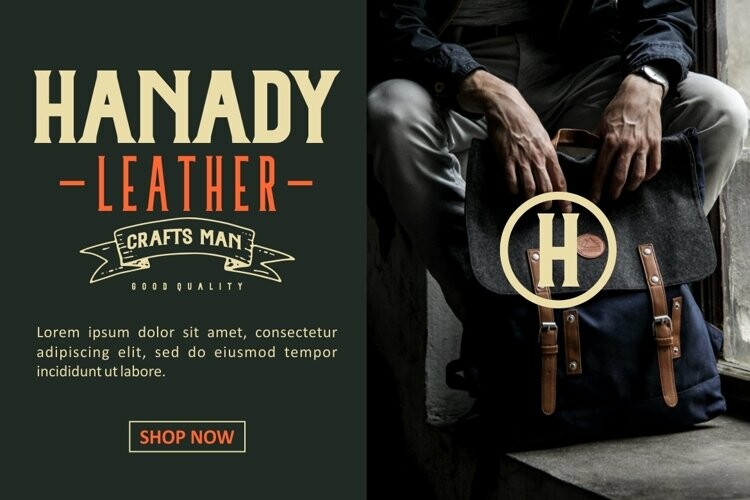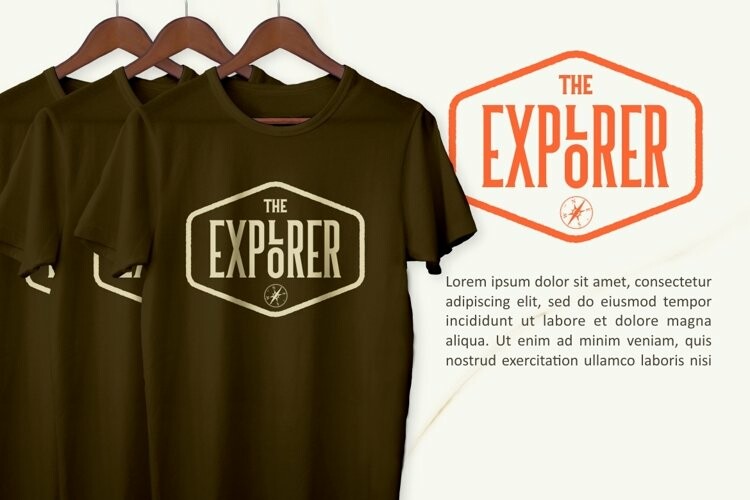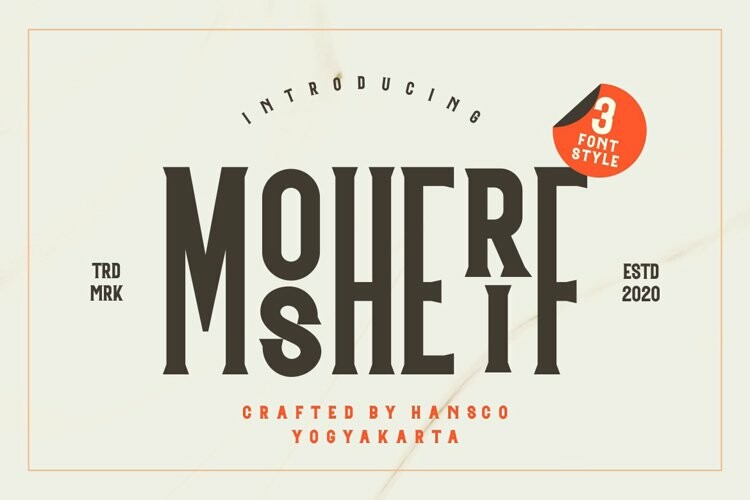
Mosherif Font
Mosherif FontMosherif font is a bold caps with clean yet sharp vintage style. This font combination is perfect for your many design projects. Like Flyer, Logo Design, Badge, Packaging, Invitation and more. Also support standard multilingual in caps only.